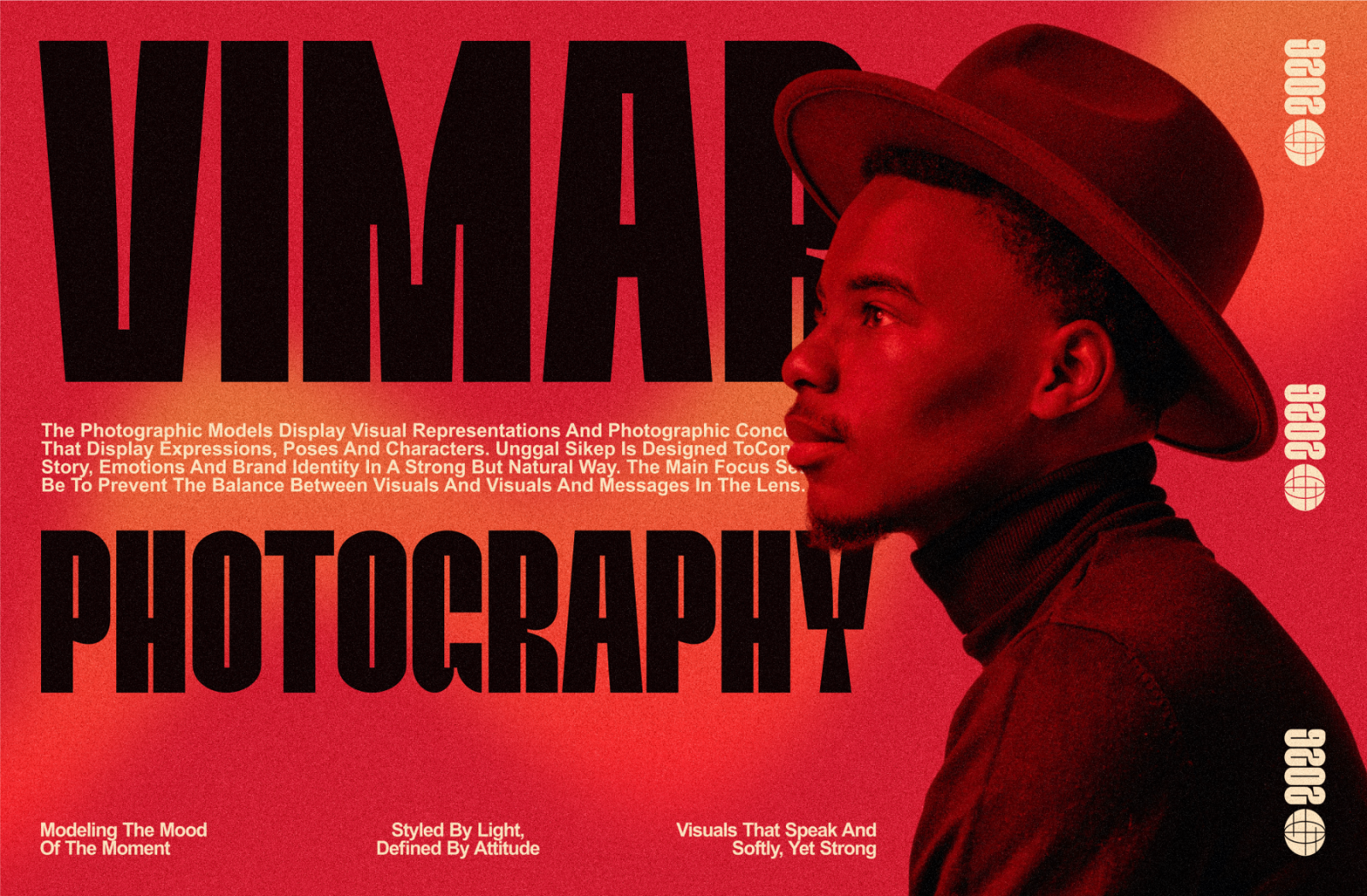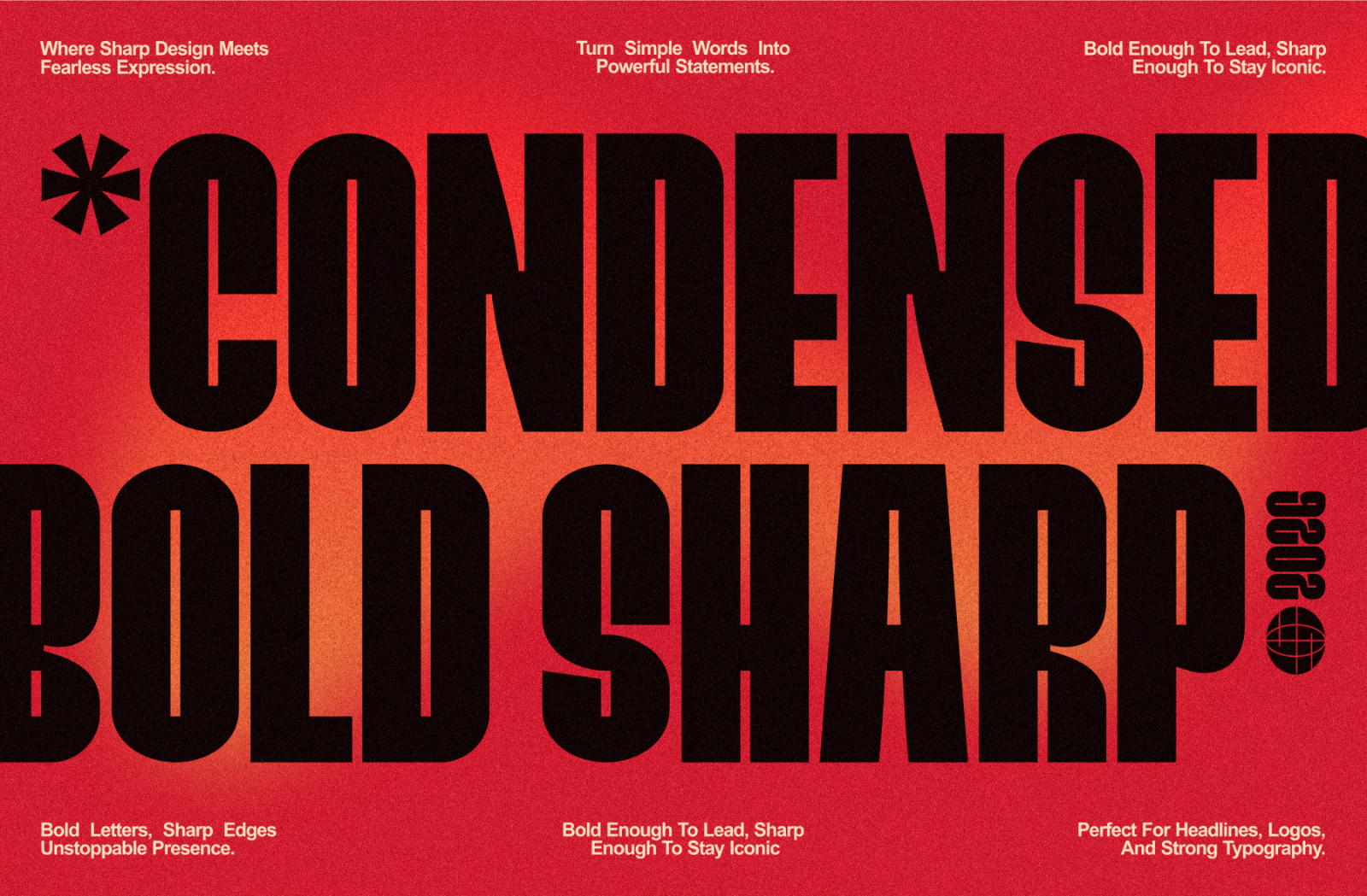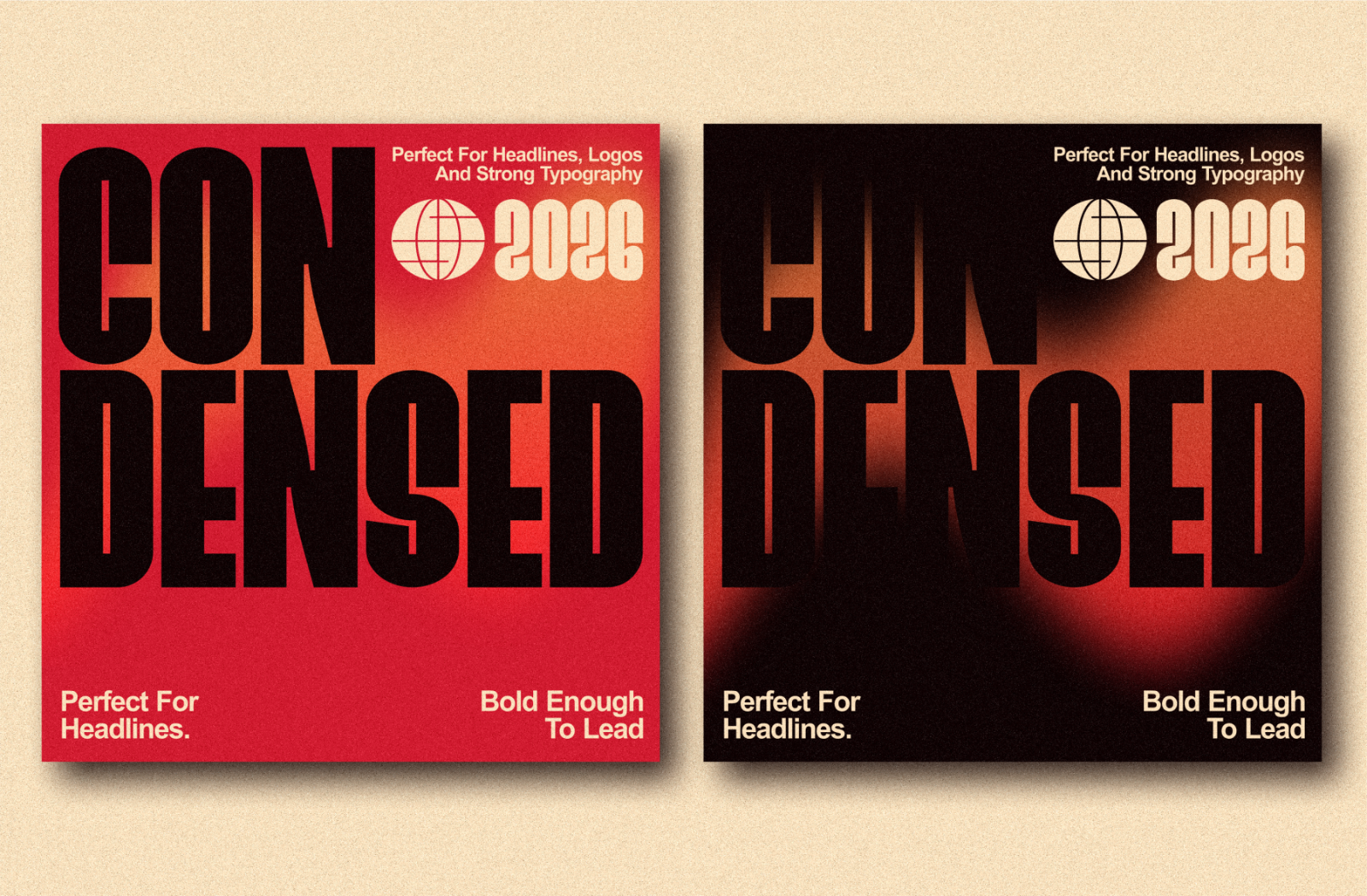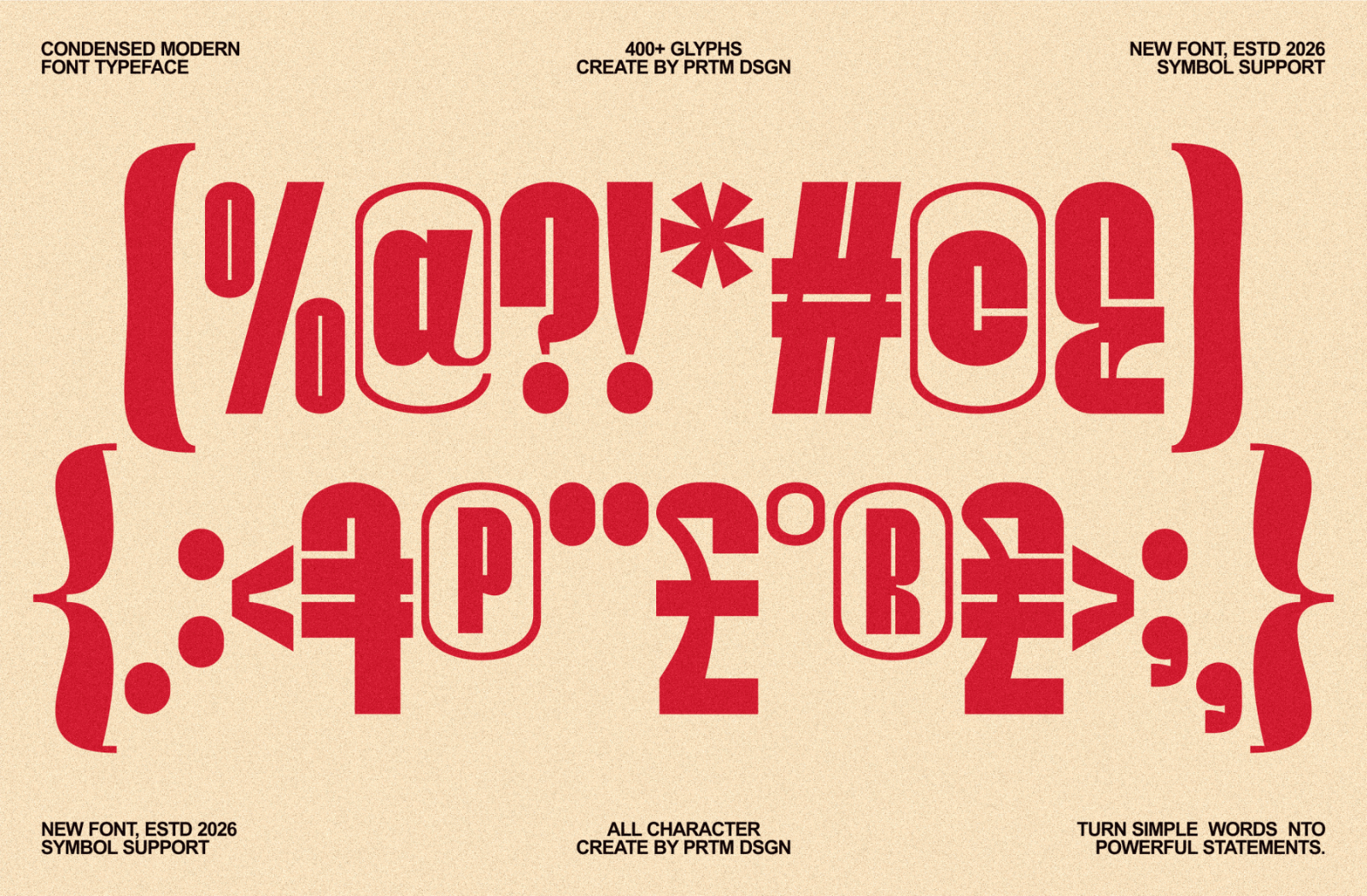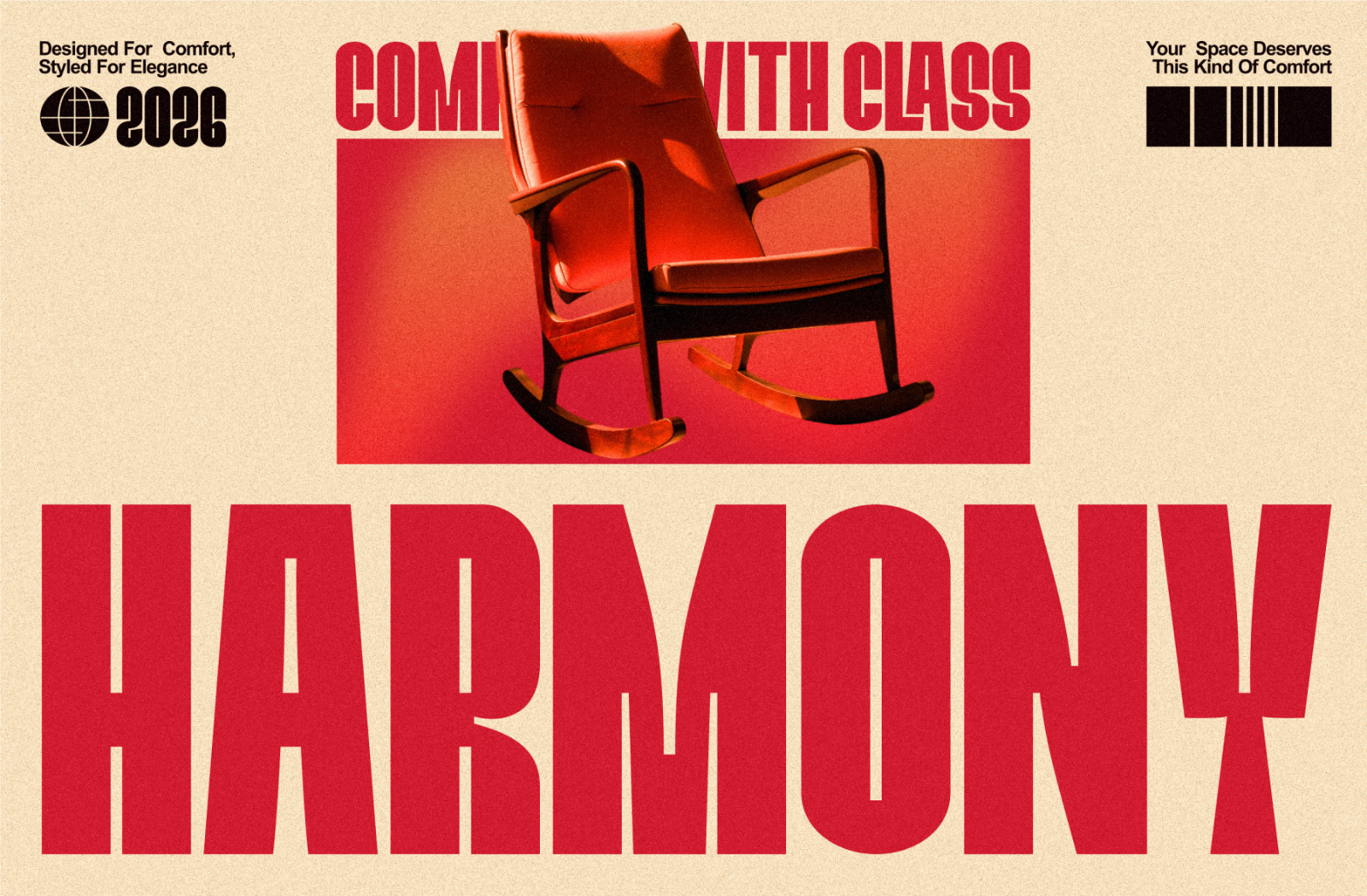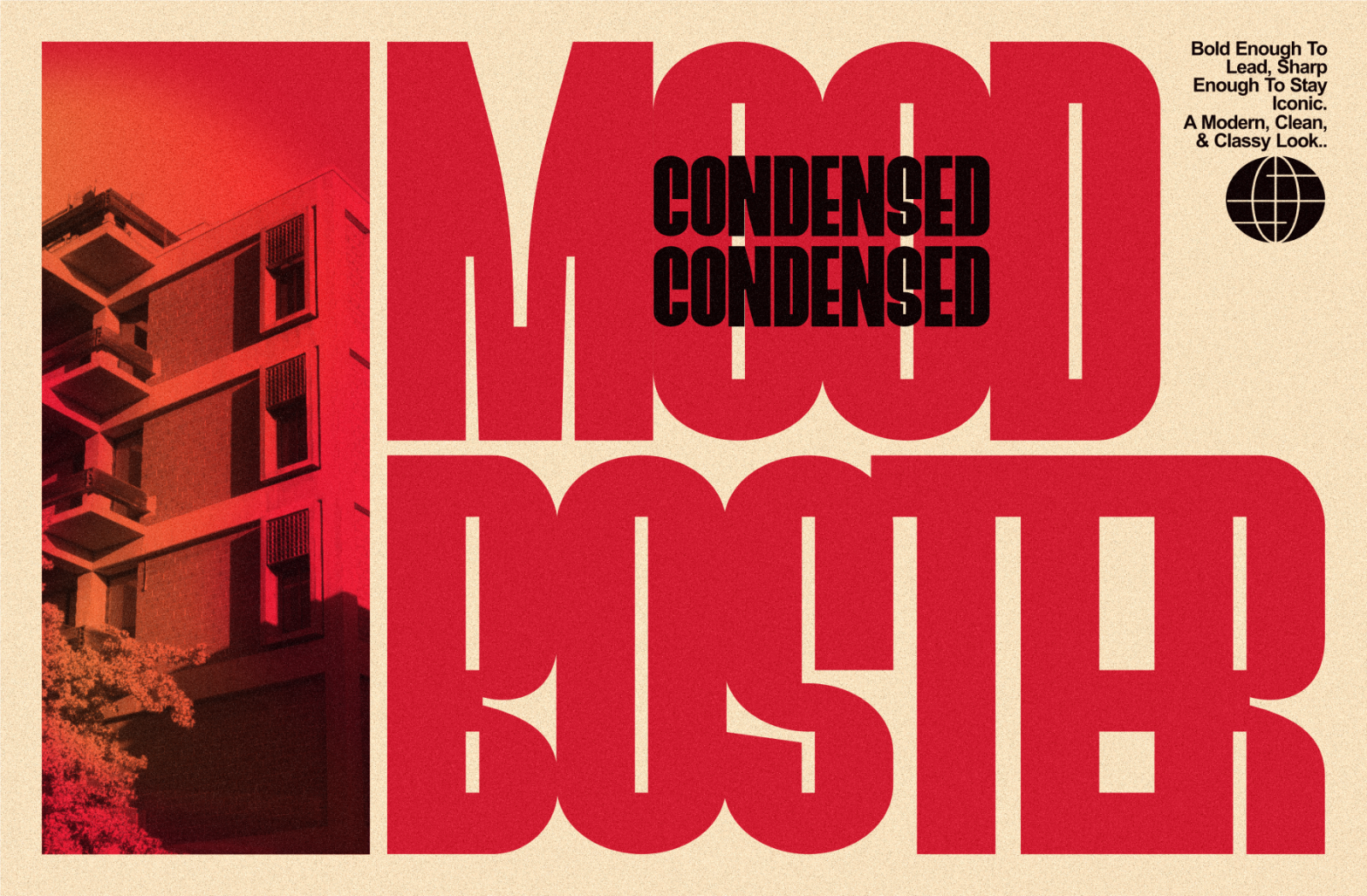
BANKIER is a bold condensed display typeface designed to bring instant impact to your typography. With a sharp, modern structure and strong vertical proportions, BANKIER is perfect for designers who want a clean but powerful look ideal for headlines, branding, posters, and stylish editorial layouts.
This typeface is built to feel confident, modern, and premium. The letterforms are crafted with a bold-sharp personality, combining solid weight with refined curves, making your text stand out clearly even at large sizes. Whether you’re working on fashion branding, architecture presentations, packaging, social media graphics, or contemporary poster design, BANKIER delivers a strong visual identity that looks professional and striking.